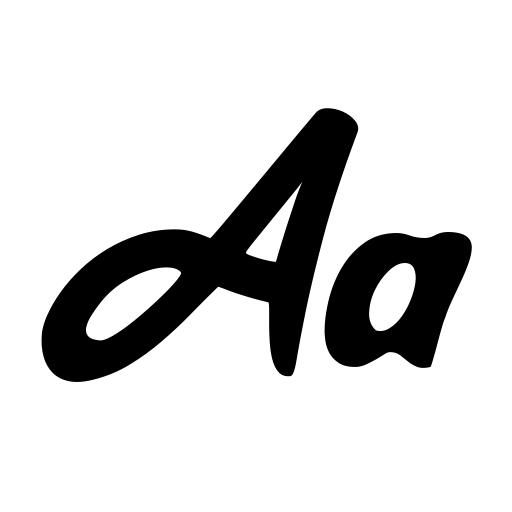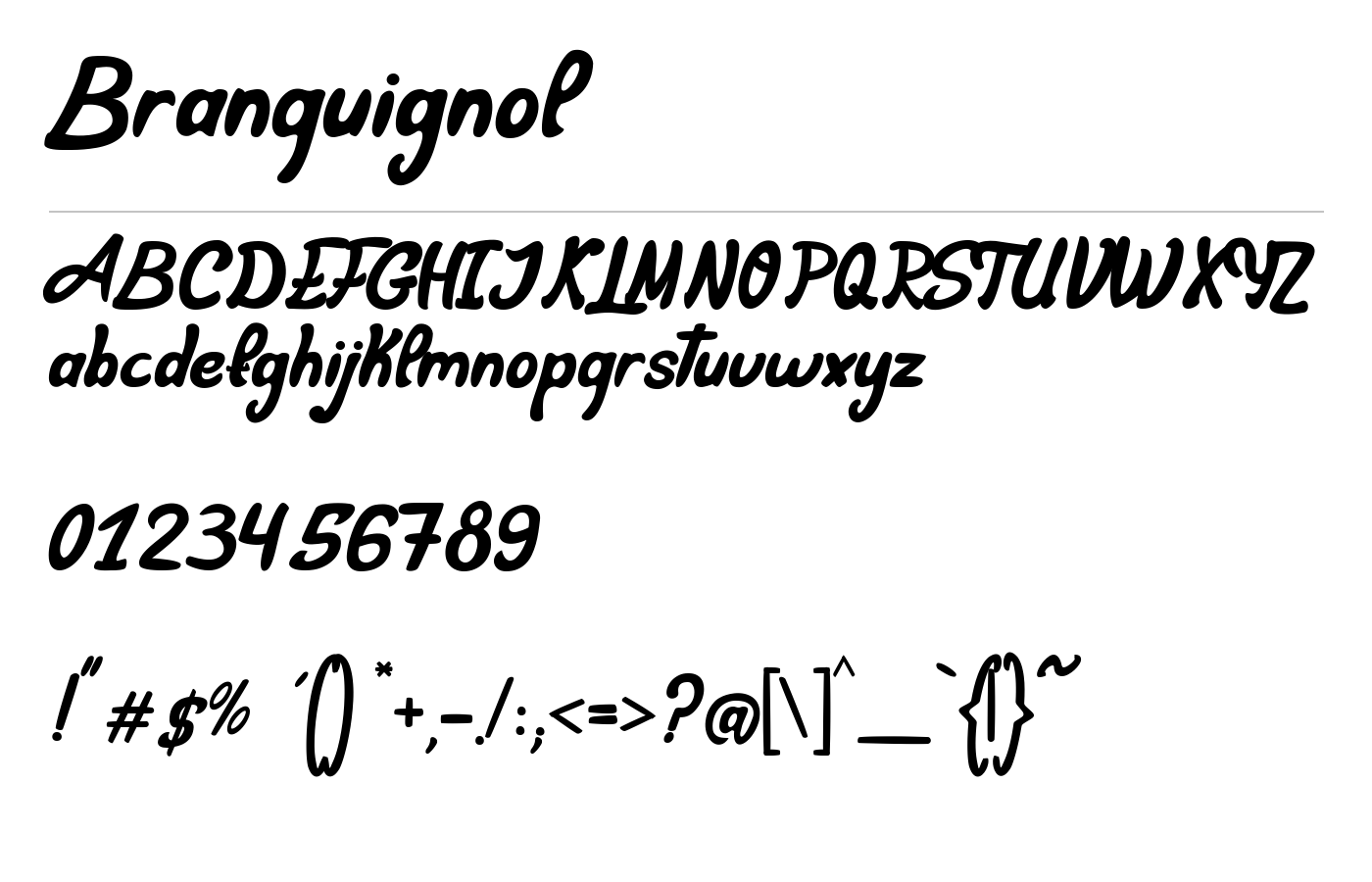
Branquignol is a playful, hand-drawn script font with a casual and friendly feel, featuring smooth, rounded strokes and a moderate contrast. Its lively letterforms, including unique curls and gentle slants, make it ideal for fun packaging, informal branding, and eye-catching headlines. This font works well where a warm, approachable, and energetic personality is desired.
Branquignol Font
About Branquignol Font
| Font family | Branquignol Font |
| Designer | La Matrice |